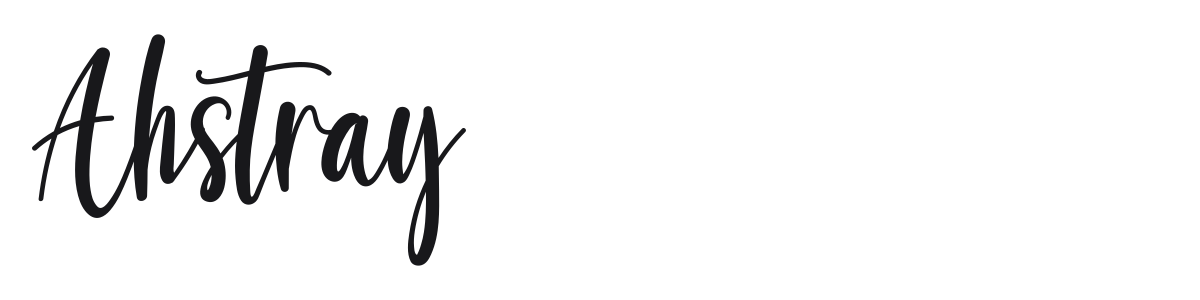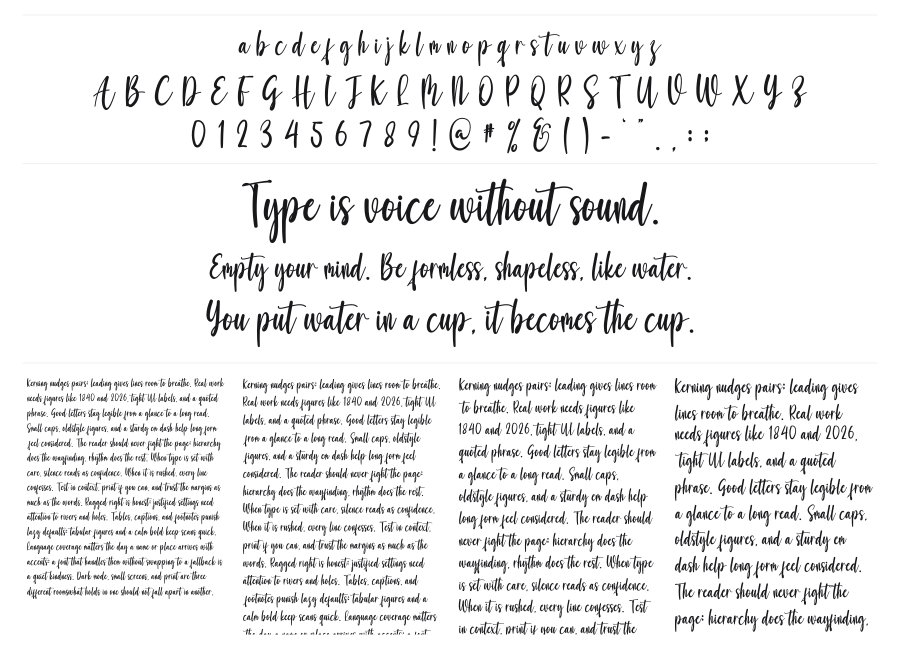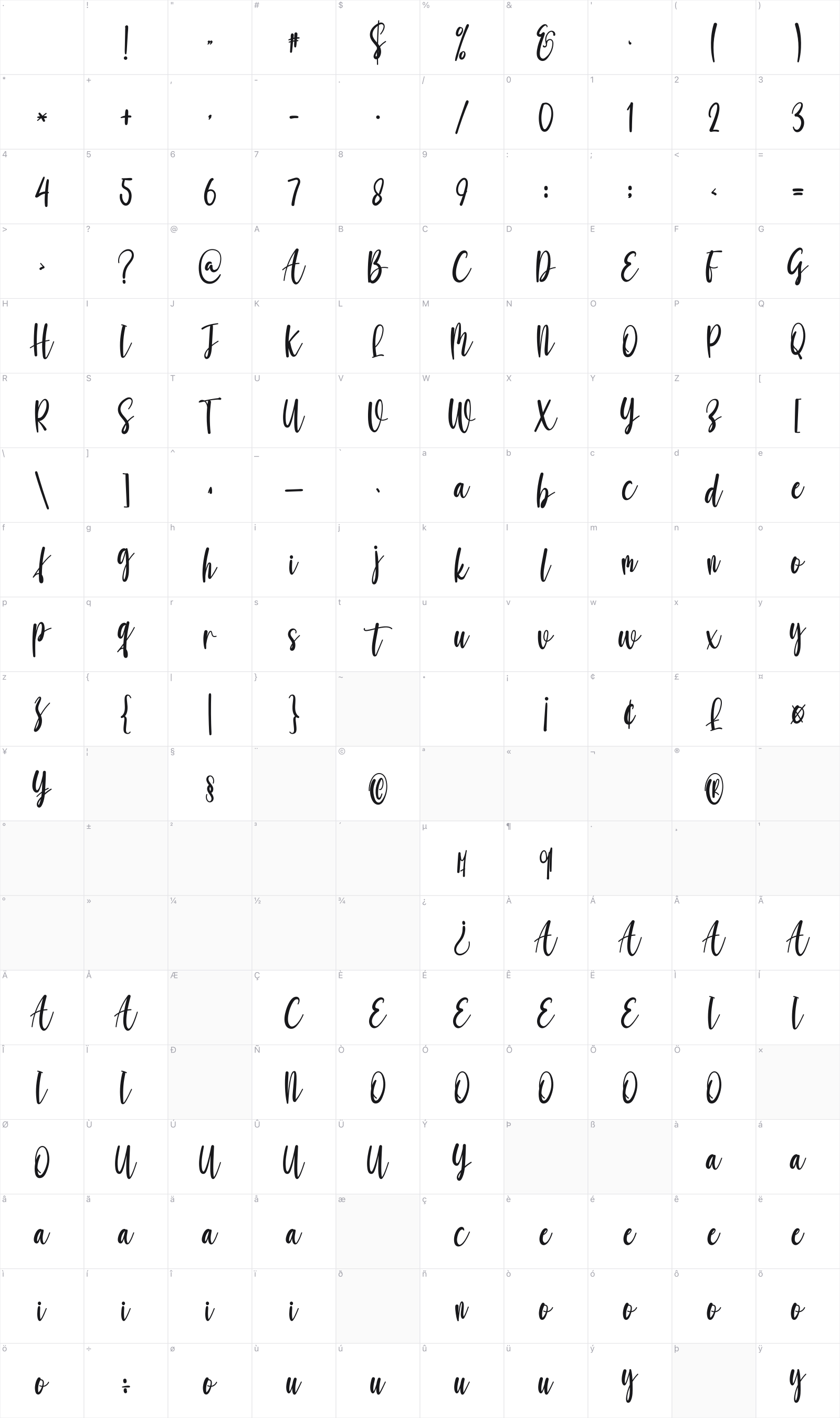
Ahstray
Ahstray is a contemporary casual script that bridges calligraphic tradition with a modern, relaxed energy. Flowing connected strokes and lively letterforms give it warmth without feeling overly formal. It suits branding, stationery, and titles where a hand-penned touch reads as polished rather than rough.